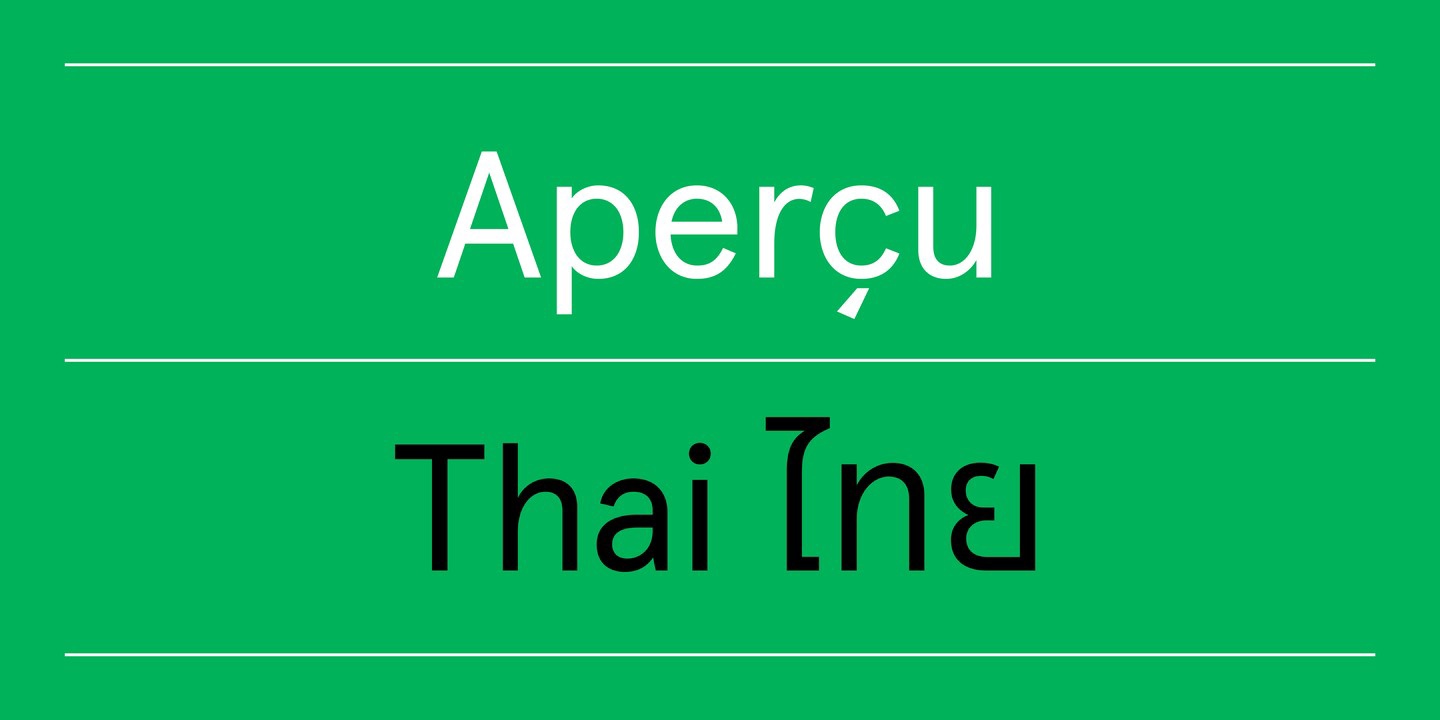
Apercu Thai Font
This multilingual typeface is perfect for Thai restaurants, Southeast Asian brands, cultural organizations, international businesses, travel agencies, global campaigns, multicultural publications, Thai language materials, and cross-cultural design projects.
What makes this font exciting is its Thai script authenticity combined with international versatility, offering designers a culturally-aware typeface that captures Thai linguistic beauty while delivering exceptional multilingual functionality and contemporary global appeal.
The Apercu Thai font family includes light, regular, medium, bold, black, and display variations, providing complete multilingual design solutions for creating authentic Thai-international visual identities.
Apercu Thai Font features carefully crafted Thai styling with authentic cultural character that conveys genuine linguistic expertise. Each character has been designed to maintain traditional Thai script beauty while ensuring optimal readability across different media platforms. The font's multicultural qualities make it particularly effective for cultural institutions and international applications.
Professional designers choose Apercu Thai Font for projects requiring authentic Thai credibility and multicultural atmosphere. Its linguistic heritage makes it exceptionally well-suited for Thai businesses, cultural centers, and international organizations serving Thai communities. The font's versatile multilingual variations allow designers to control the cultural intensity, from subtle international elegance to full Thai cultural celebration.
The complete Apercu Thai Font package offers extensive Thai ornaments and cultural decorative elements that enhance the authentic aesthetic. Advanced multilingual features allow designers to create complex cultural effects with multiple Thai-inspired options. This comprehensive multicultural toolkit ensures designers have everything needed to create authentic Thai communications that celebrate the rich linguistic heritage of Thai culture and international connectivity.